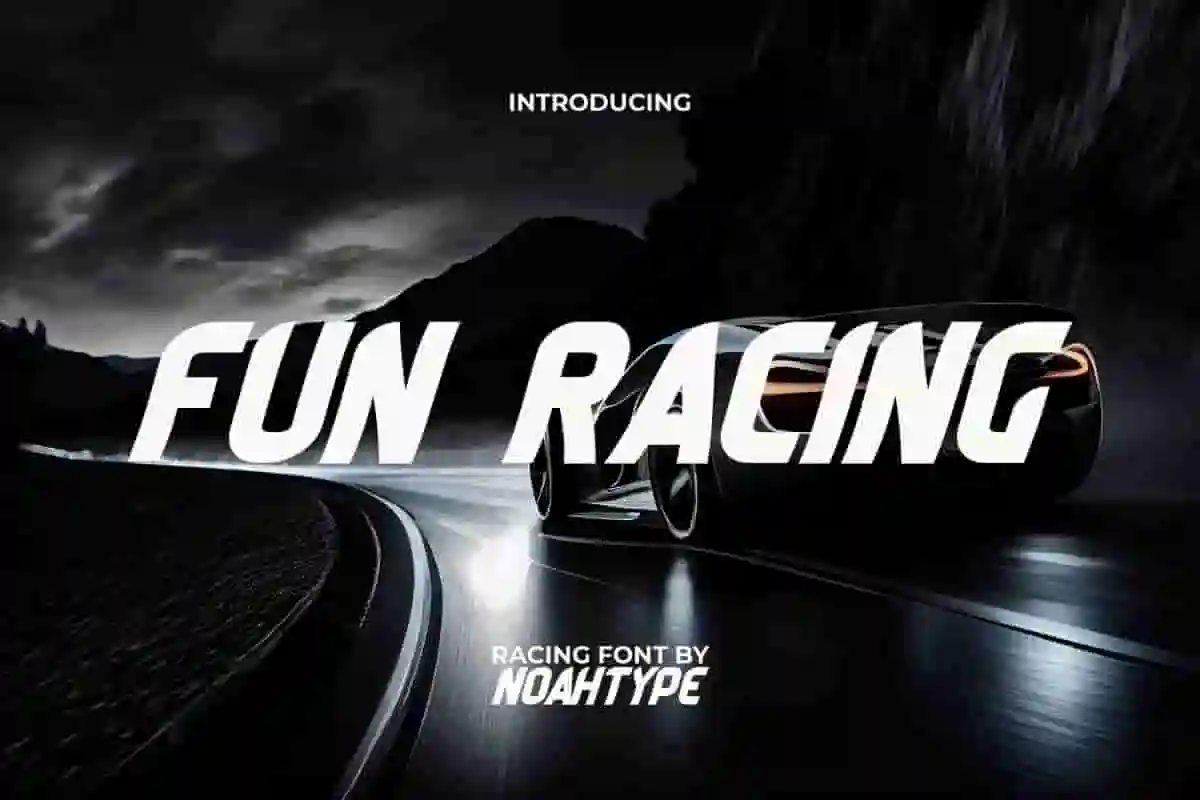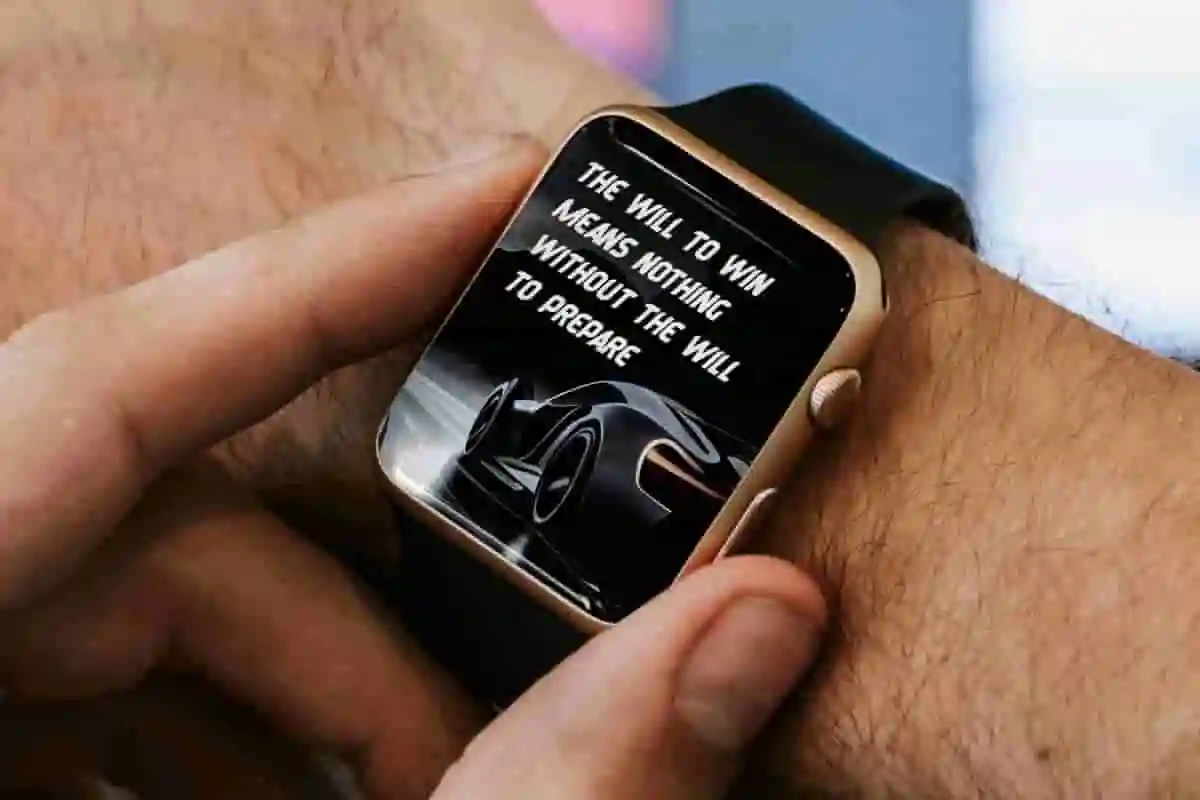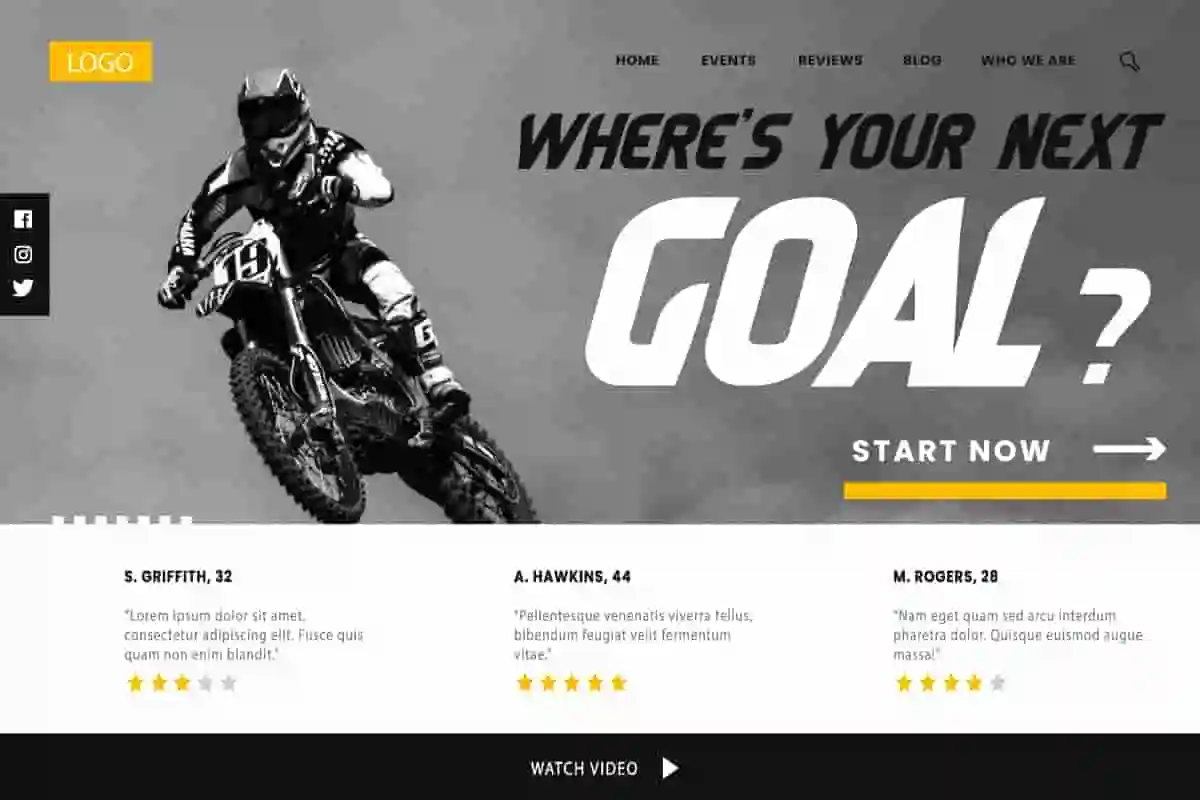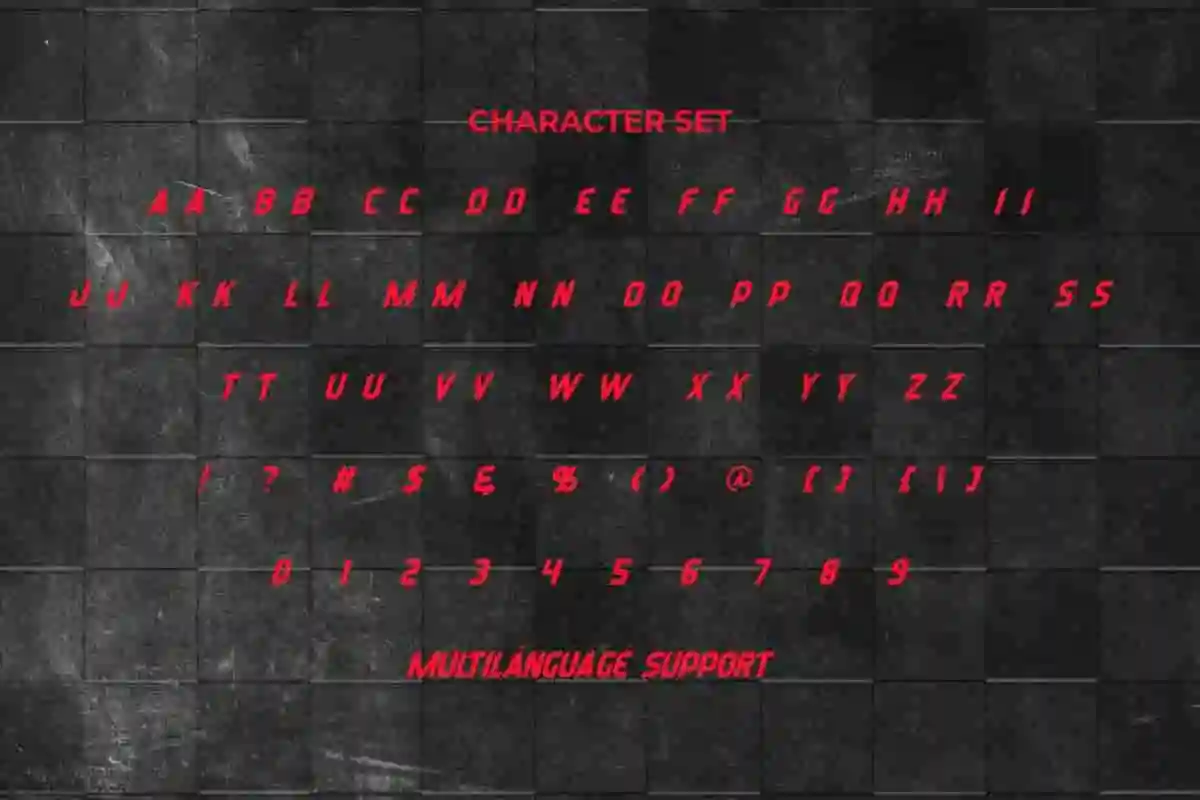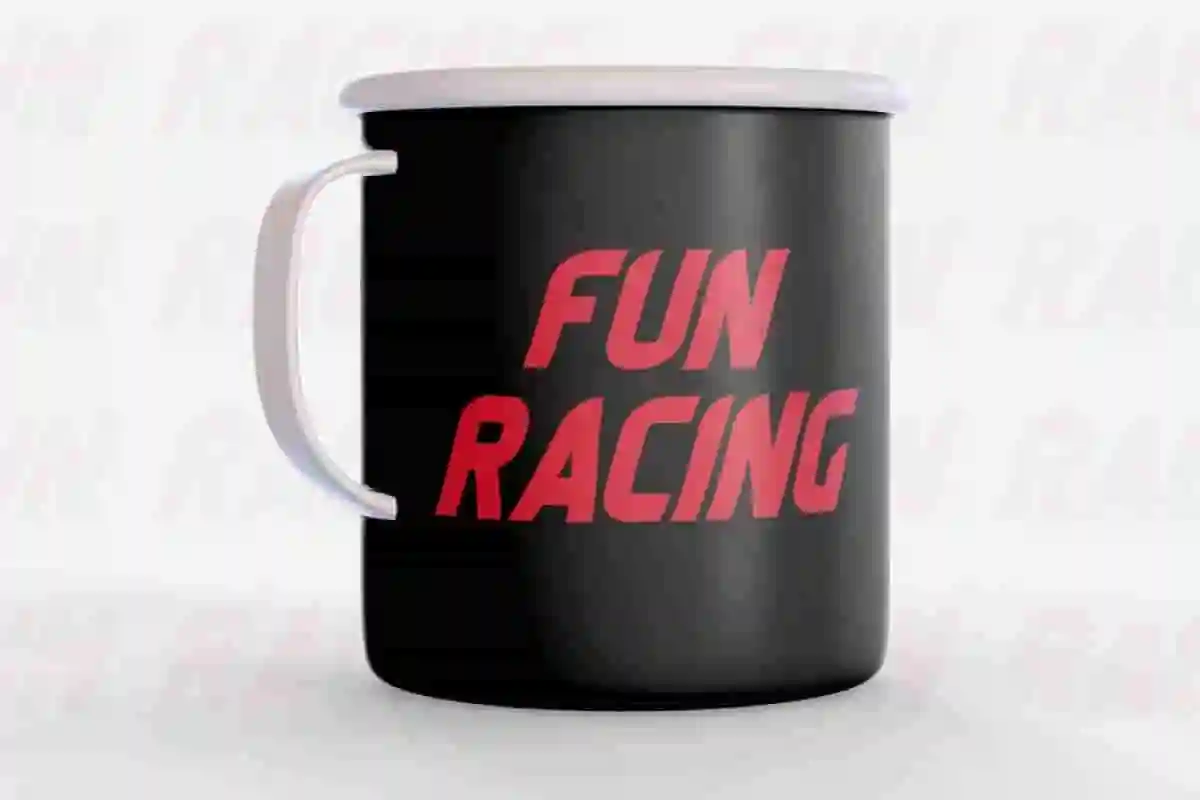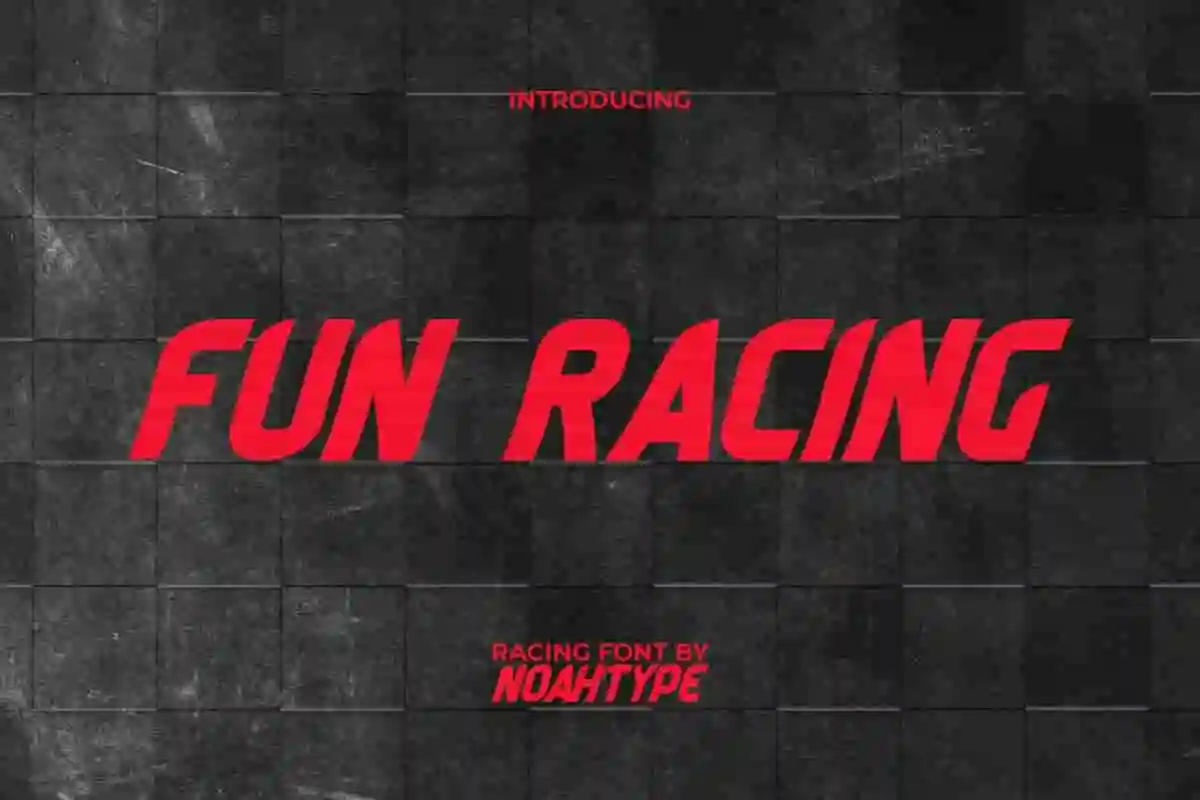
Fun Racing Font is a modern sporty display font by NoahType. This font carries a racing theme with slightly slanted letters, but still has a clean and easy-to-read appearance. It will be good for any designs, such as brand image, custom design, invitation, label, marketing material, menu, poster, product packaging, quotes, signage, stationery, web, and many more!
Fun Racing Font includes a complete set of ALL CAPS for Uppercase and Lowercase Basic Characters, Numerals, Punctuation, and Symbol. The characters of this font will give awesome look and also a perfect choice for many industries, such as accessories, advertising, event or festival, fashion, game, printing, publishing, sports, travel, etc.